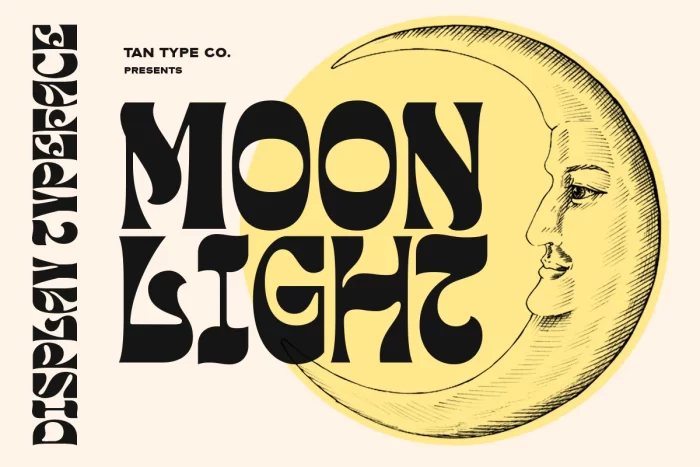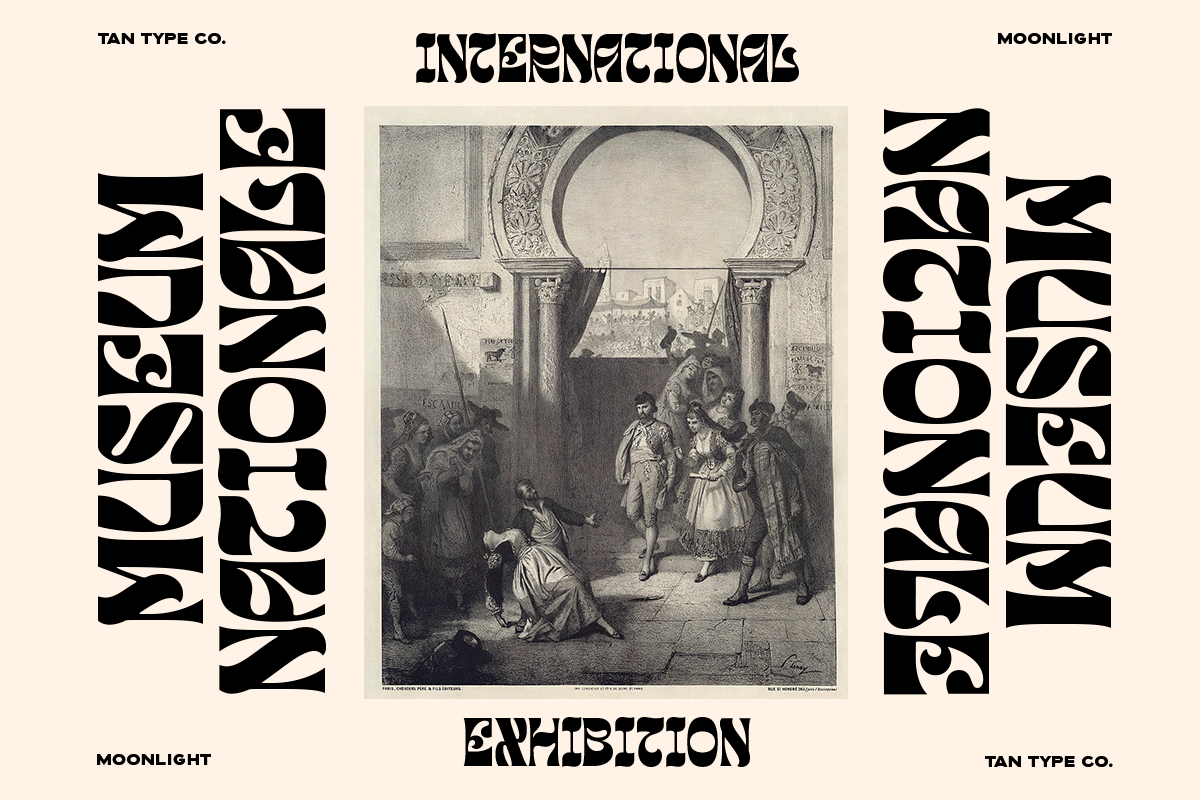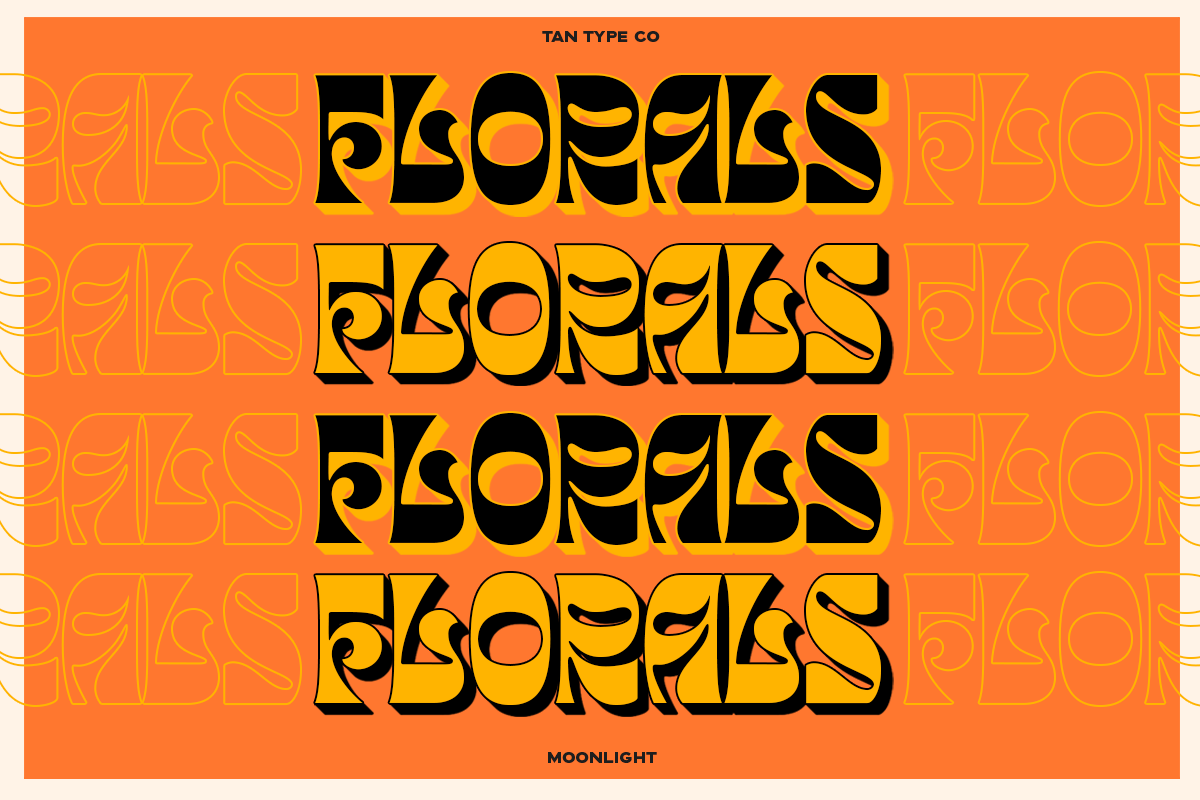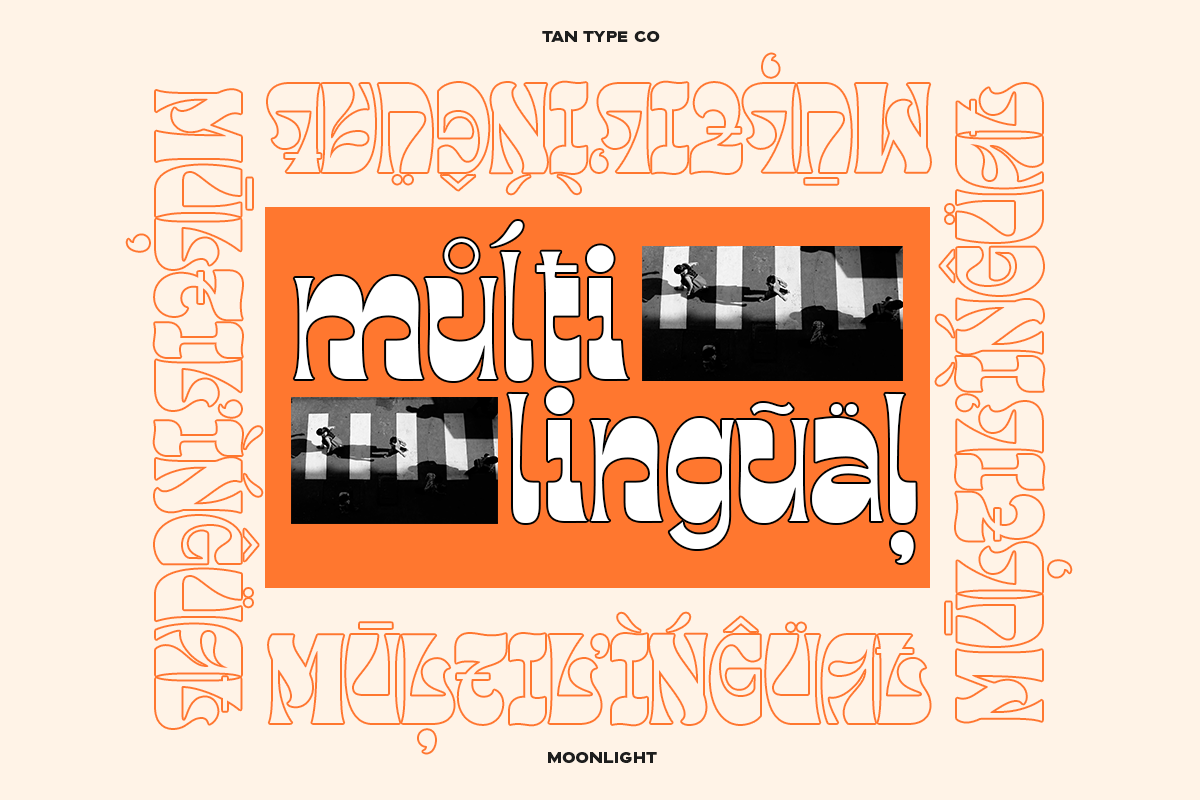
Tan Moonlight Font
TAN – MOONLIGHT is a display typeface that says we’re here to boogie! It brings back the 70s vibes with its groovy and funky rhythm.